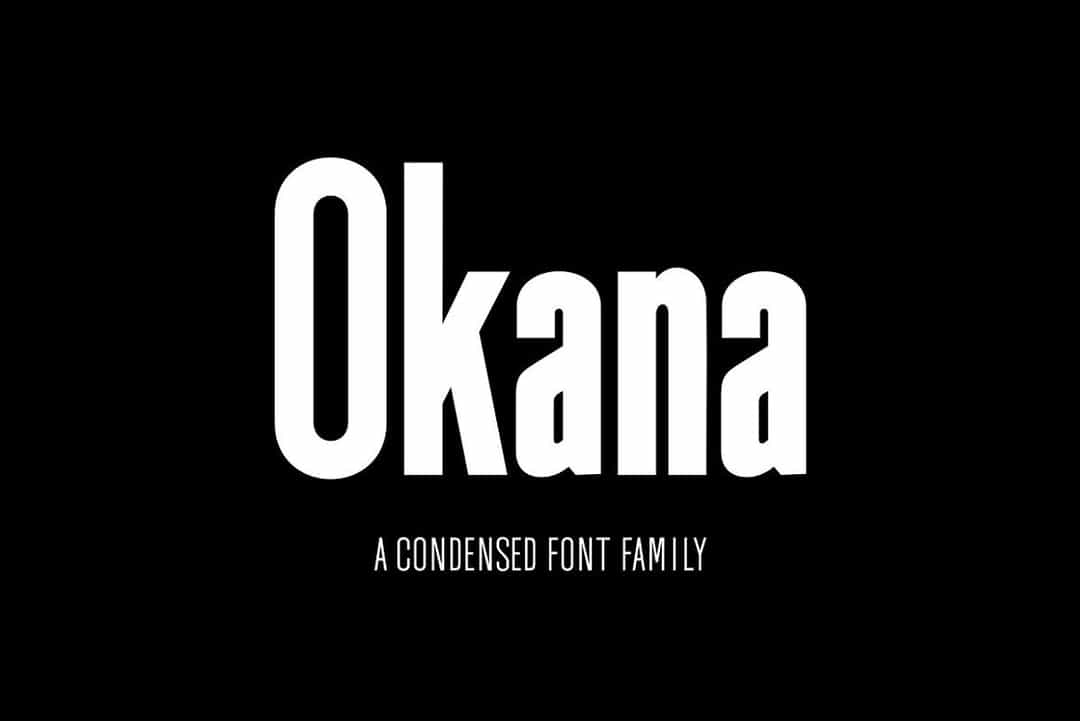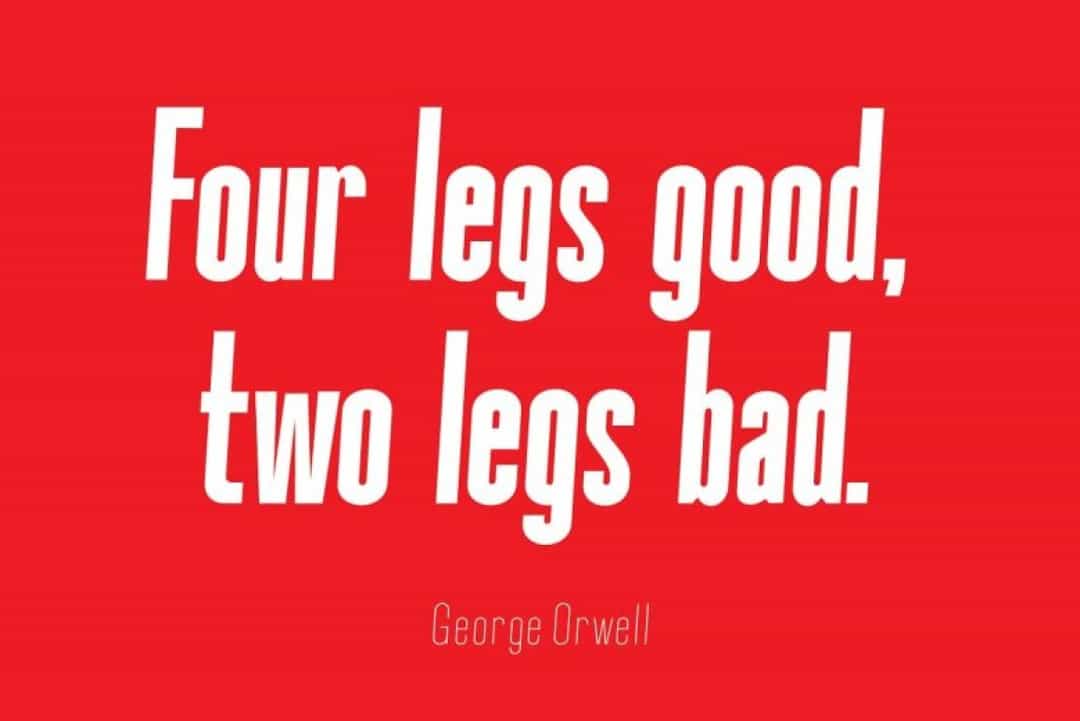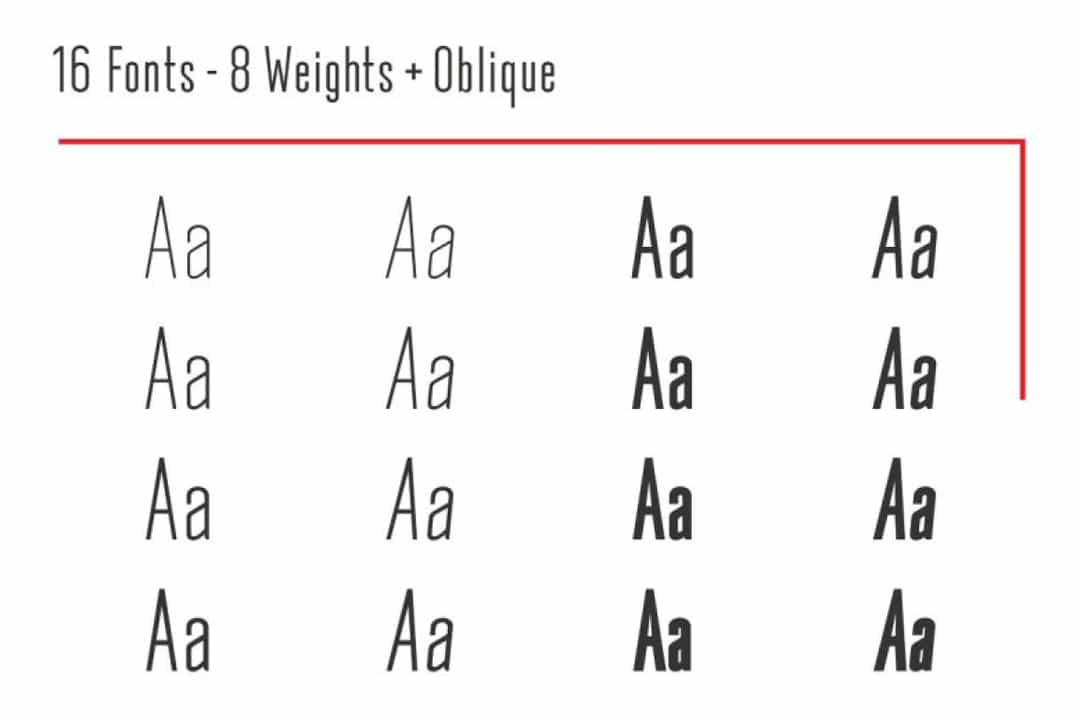
Okanais is a geometric sans serif font family with 16 styles – eight uprights and matching obliques – to meet any design need. This font makes communicating your message through design easier while leaving lasting visual impressions with visually striking designs.